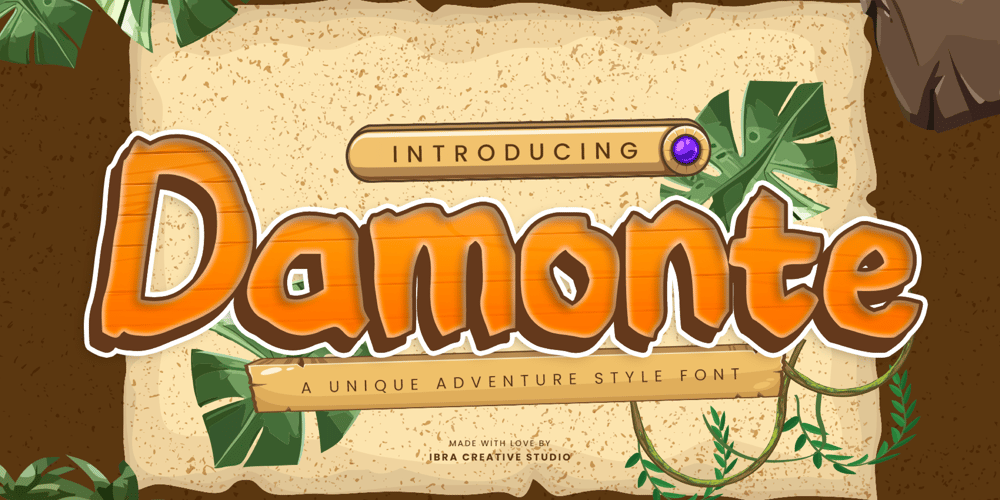
Damonte Font Family was designed by Roisatul Azizah and published by IbraCreative. Damonte contains 1 styles and family package options. Damonte is an extraordinary adventure style font that embodies a sense of exploration and wonder. Its distinct letterforms are inspired by rugged landscapes and daring expeditions, making it a perfect choice for projects that seek to evoke a spirit of adventure and discovery. With its unique and captivating design, Damonte adds a touch of mystique to logos, book covers, and outdoor-themed designs.